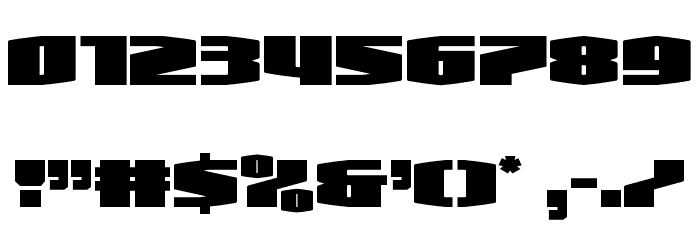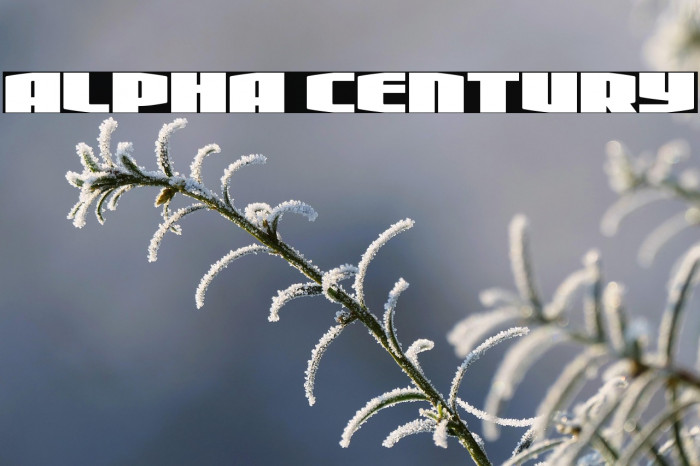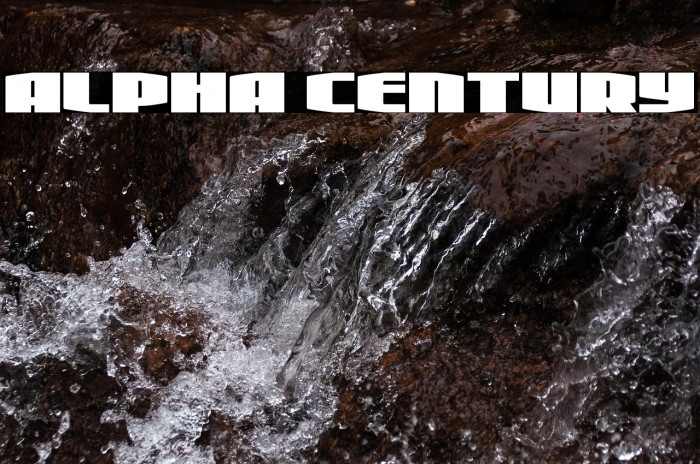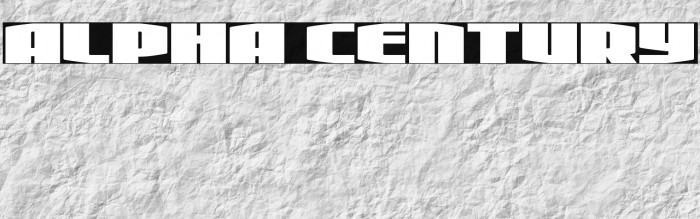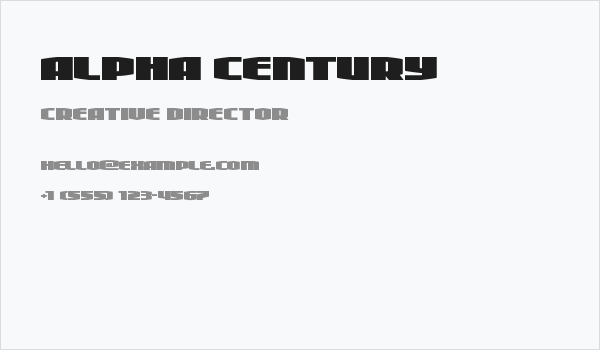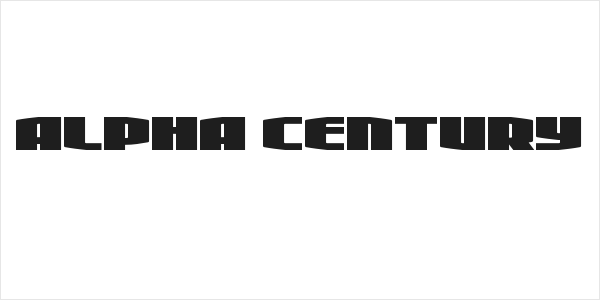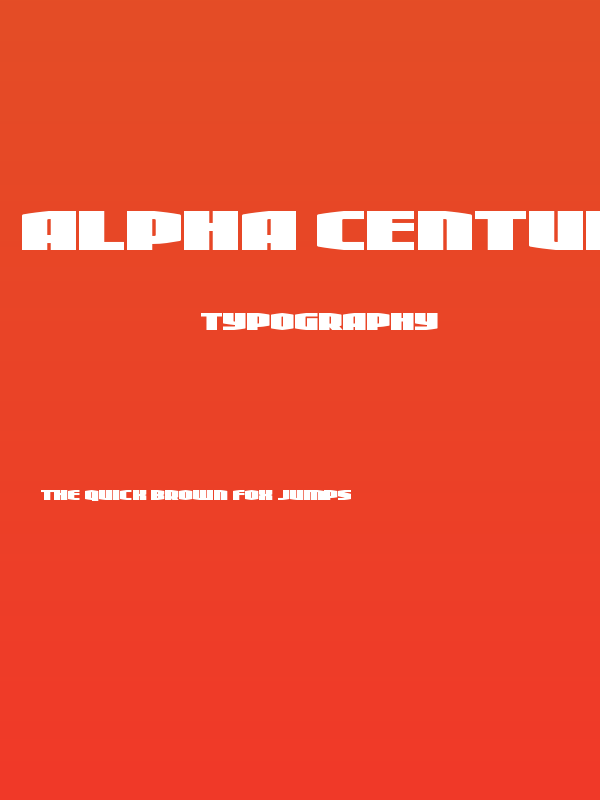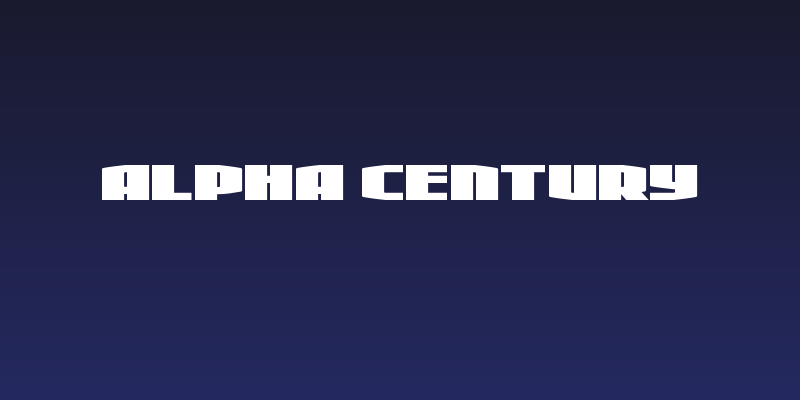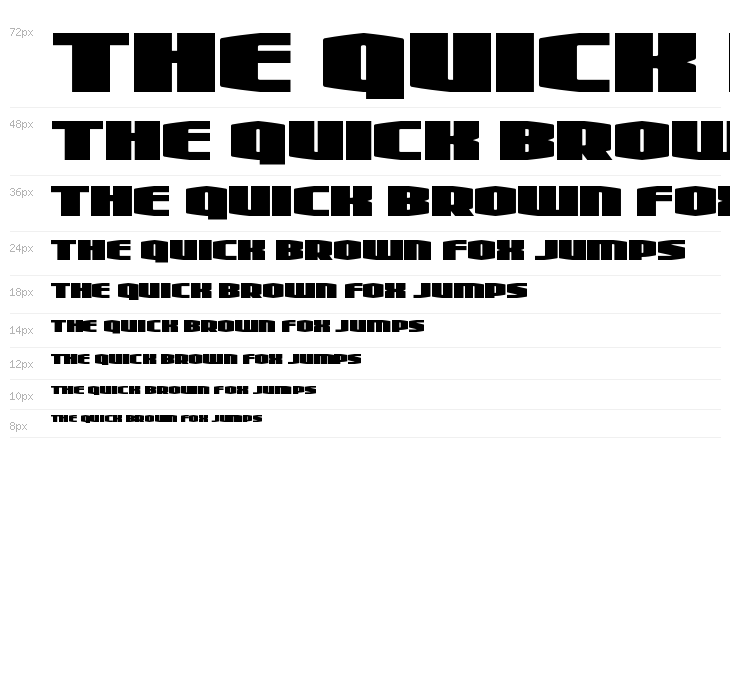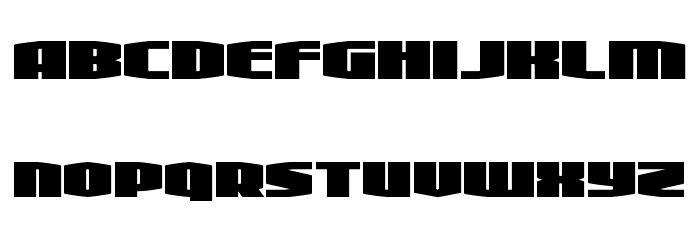
Alpha Century Description
This font features a bold and futuristic design with a strong geometric influence. The characters are wide and blocky, with a distinct angular style that gives them a modern and industrial feel. The uppercase and lowercase letters maintain a consistent width, creating a uniform appearance across the text. The numbers and special characters follow the same design principles, ensuring a cohesive look. This font's unique style makes it stand out, suitable for projects that require a bold statement.
| Proposed Projects | Ideal for sci-fi themed designs, video game titles, posters, and branding that requires a modern and bold aesthetic. |